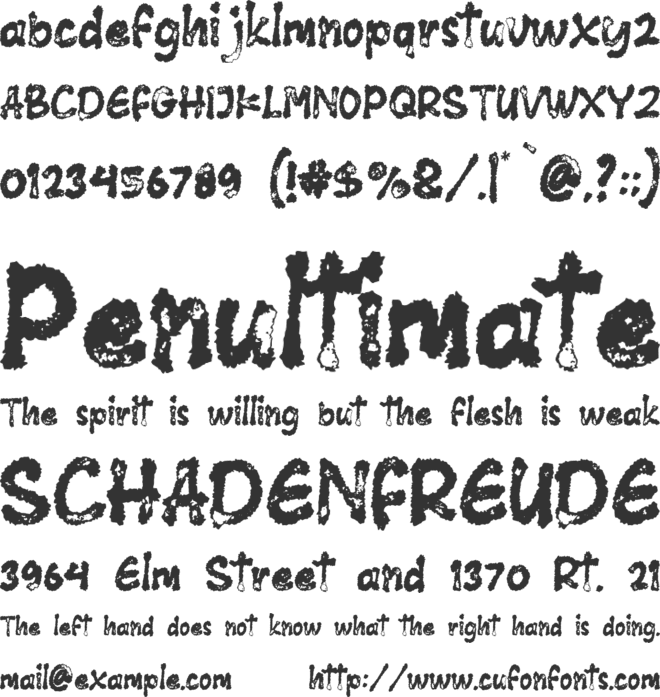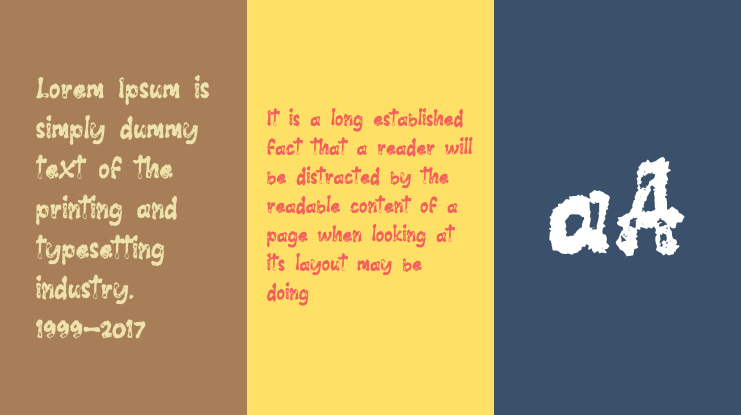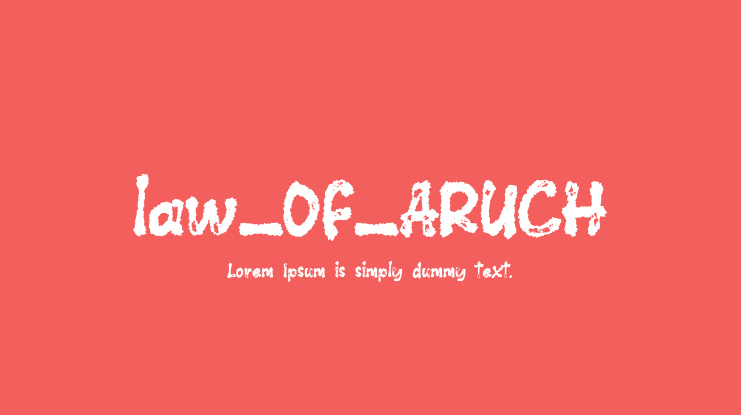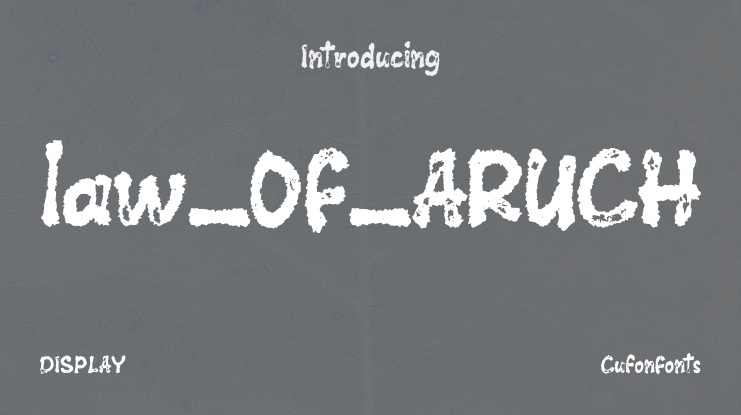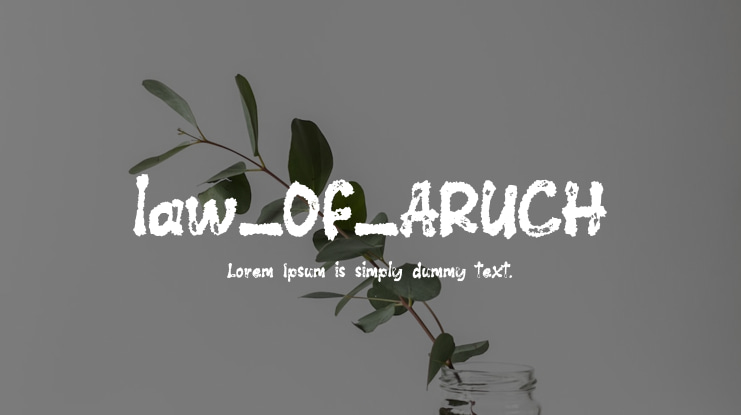
law_OF_ARUCH Font
Law Of Aruch is a brush style font that features a natural and simple grunge effect. It offers various ligatures and swashes to enhance the overall aesthetic. Please note that the Law Of Aruch demo font is strictly for personal use only. However, any donations made towards the font are greatly appreciated. Connect with us on Instagram at https://instagram.com/glyphstyle. To make a donation, you can visit our Paypal account at https://www.paypal.me/dimasardhi.